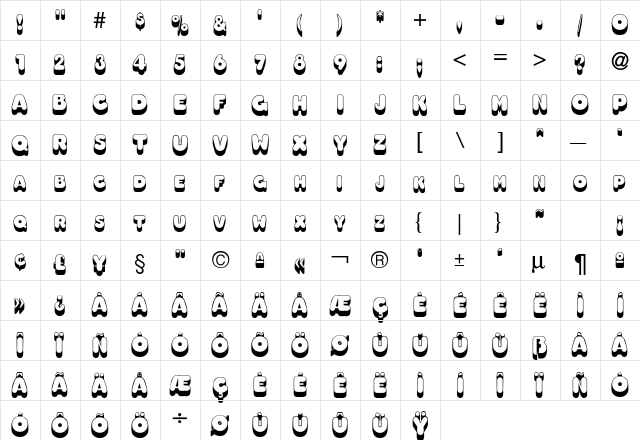
OleadaShadowSCapsSSK Bold
Design Context for OleadaShadowSCapsSSK Typeface
OleadaShadowSCapsSSK is built around its visual character rather than neutral utility — its distinctive forms are designed to make an impression at display sizes. The heavy weight commands attention and anchors typographic hierarchies.
Font Pairing: Pair with a clean neutral sans-serif for body copy to let OleadaShadowSCapsSSK's character lead without overwhelming the composition.
Pro Tip: Treat OleadaShadowSCapsSSK as the centrepiece of your typographic hierarchy. One strong heading set in a decorative face can carry an entire layout.